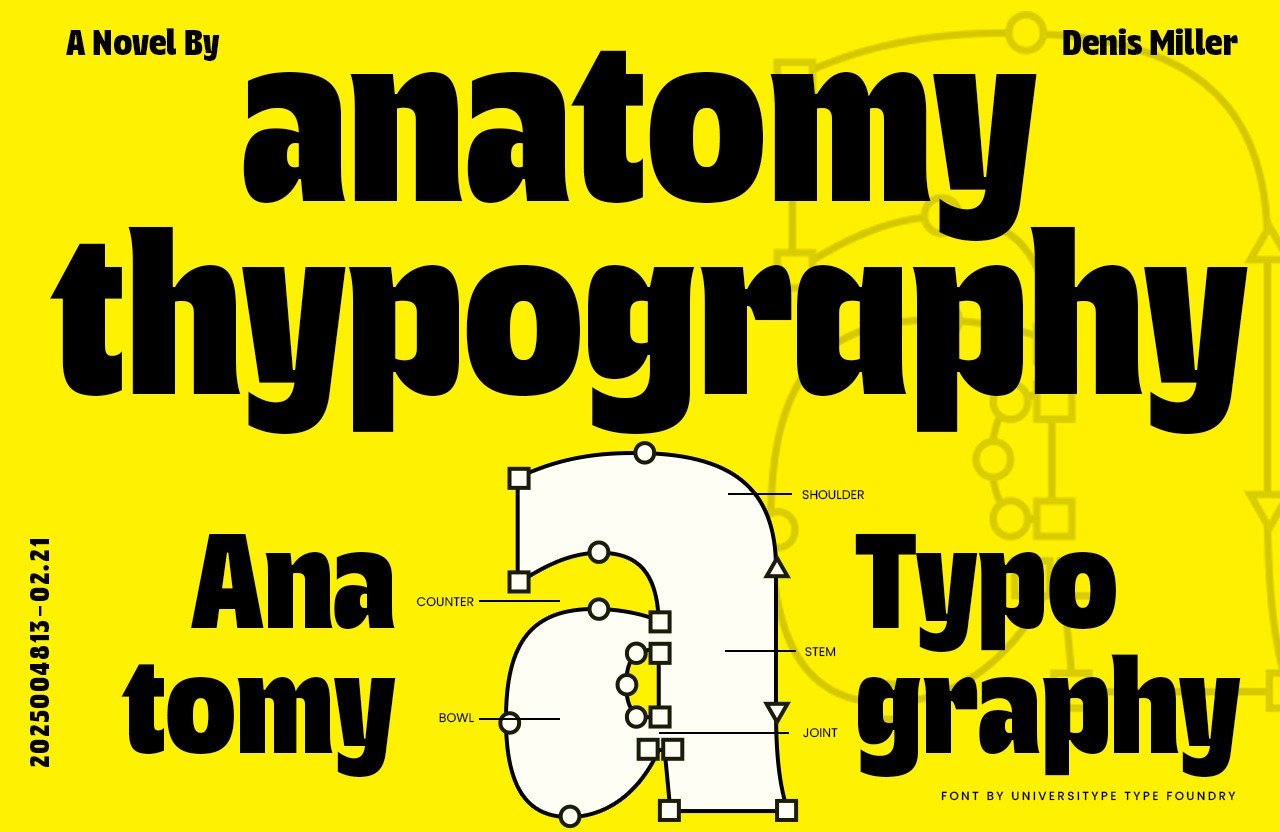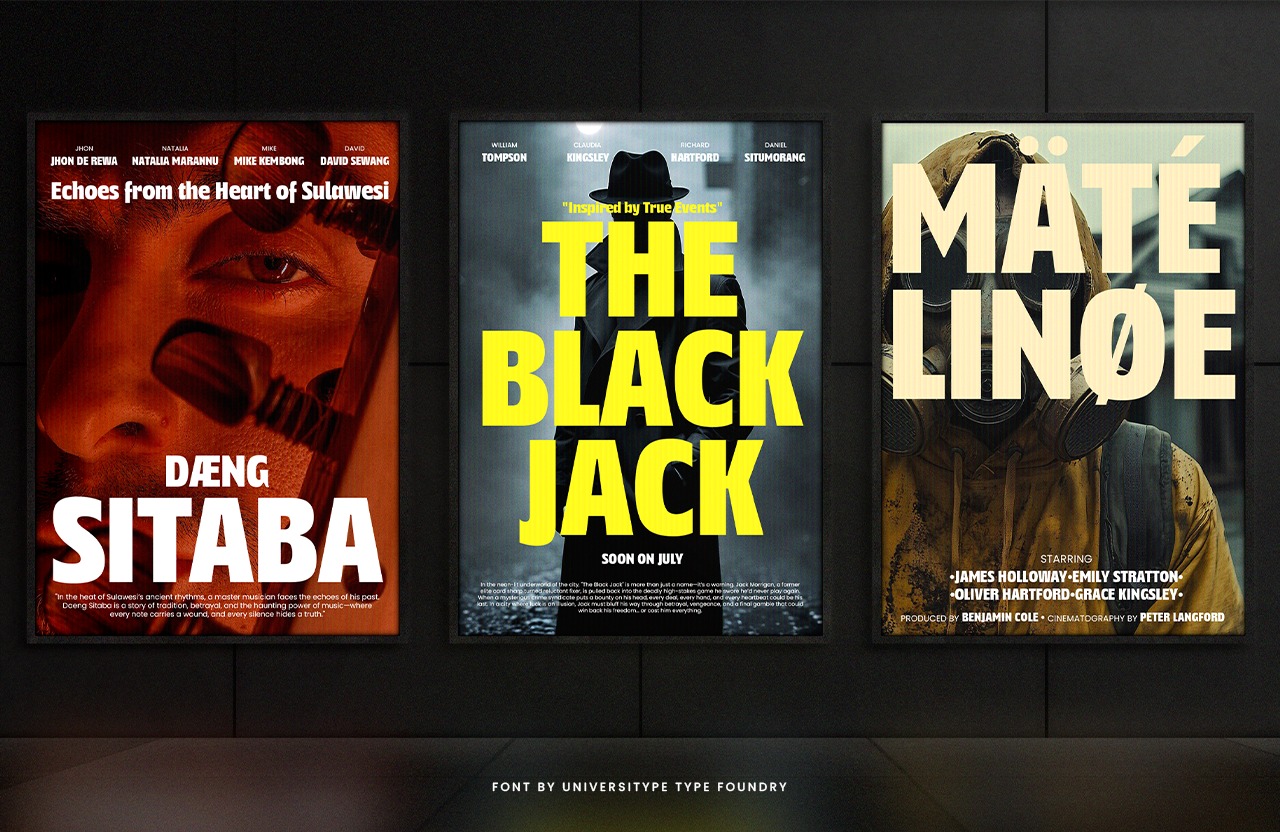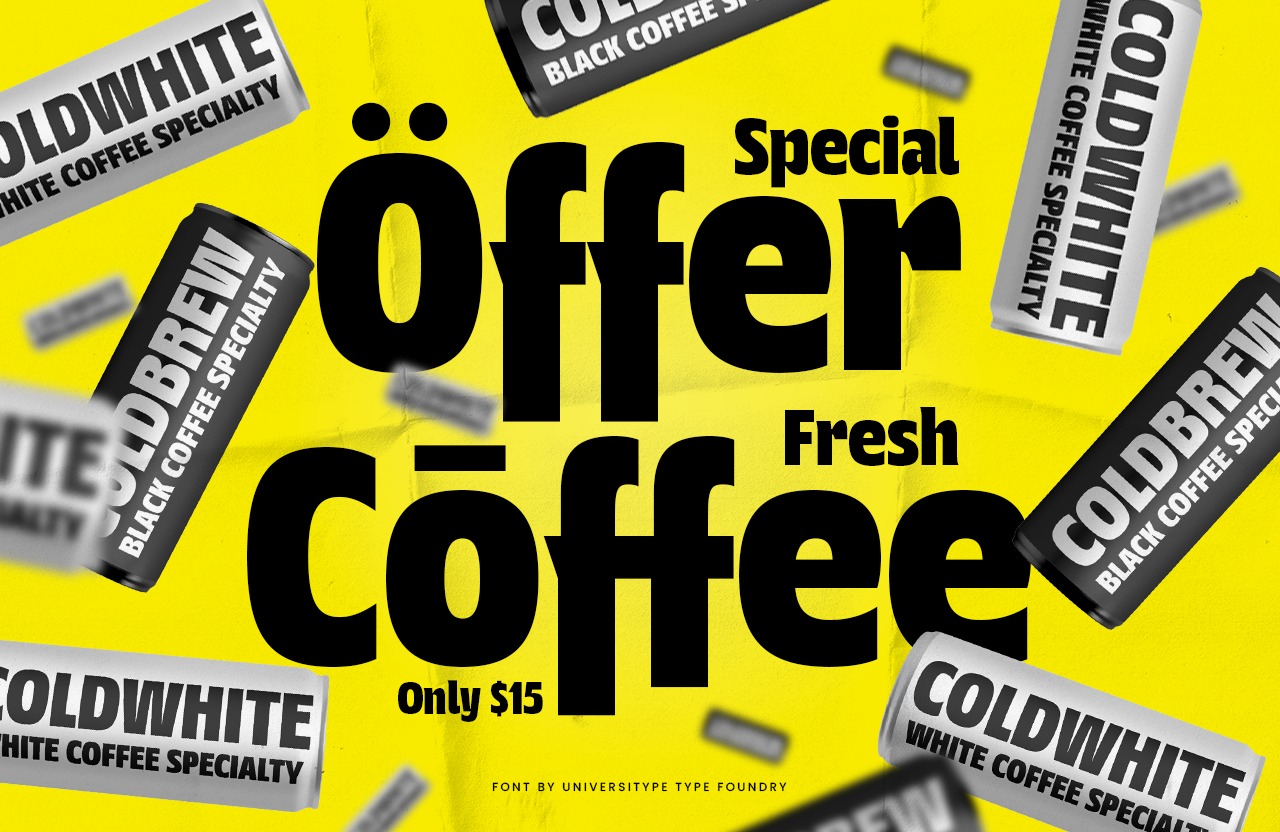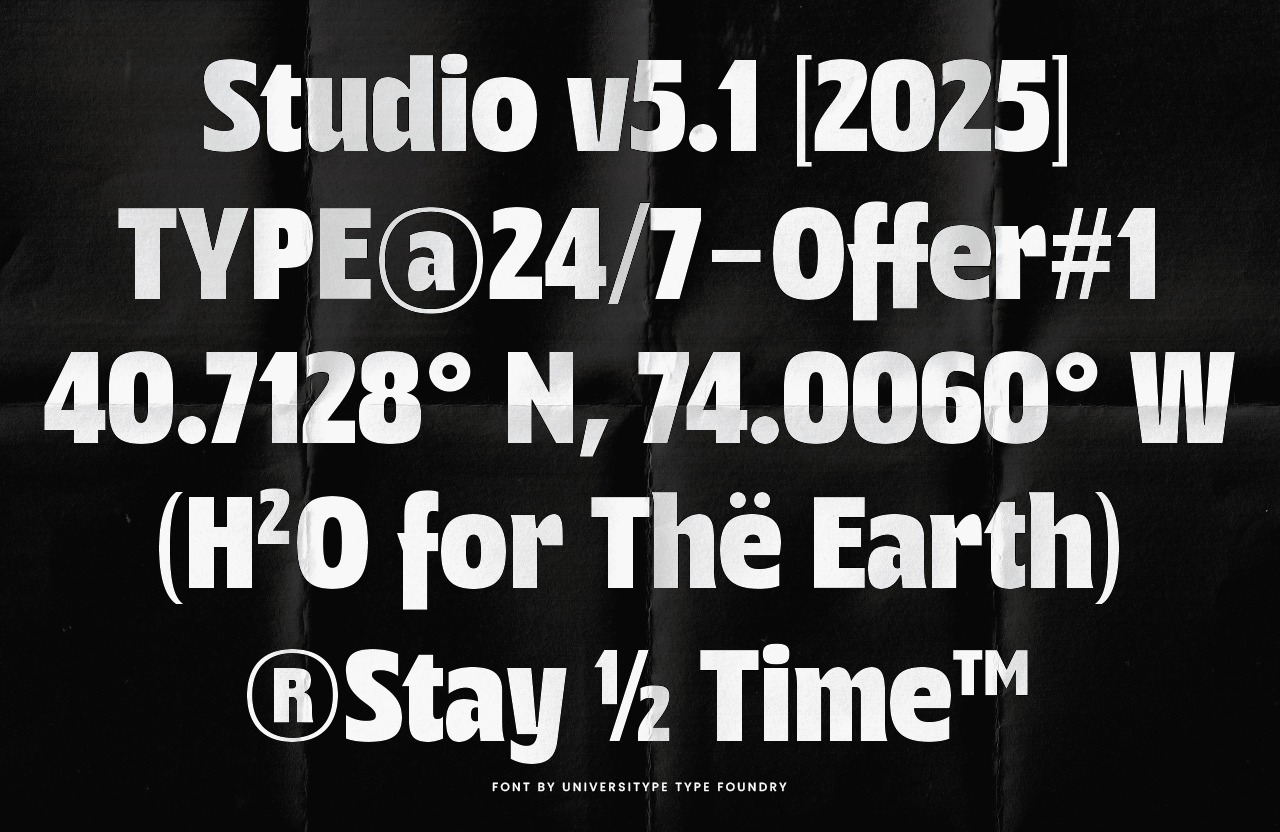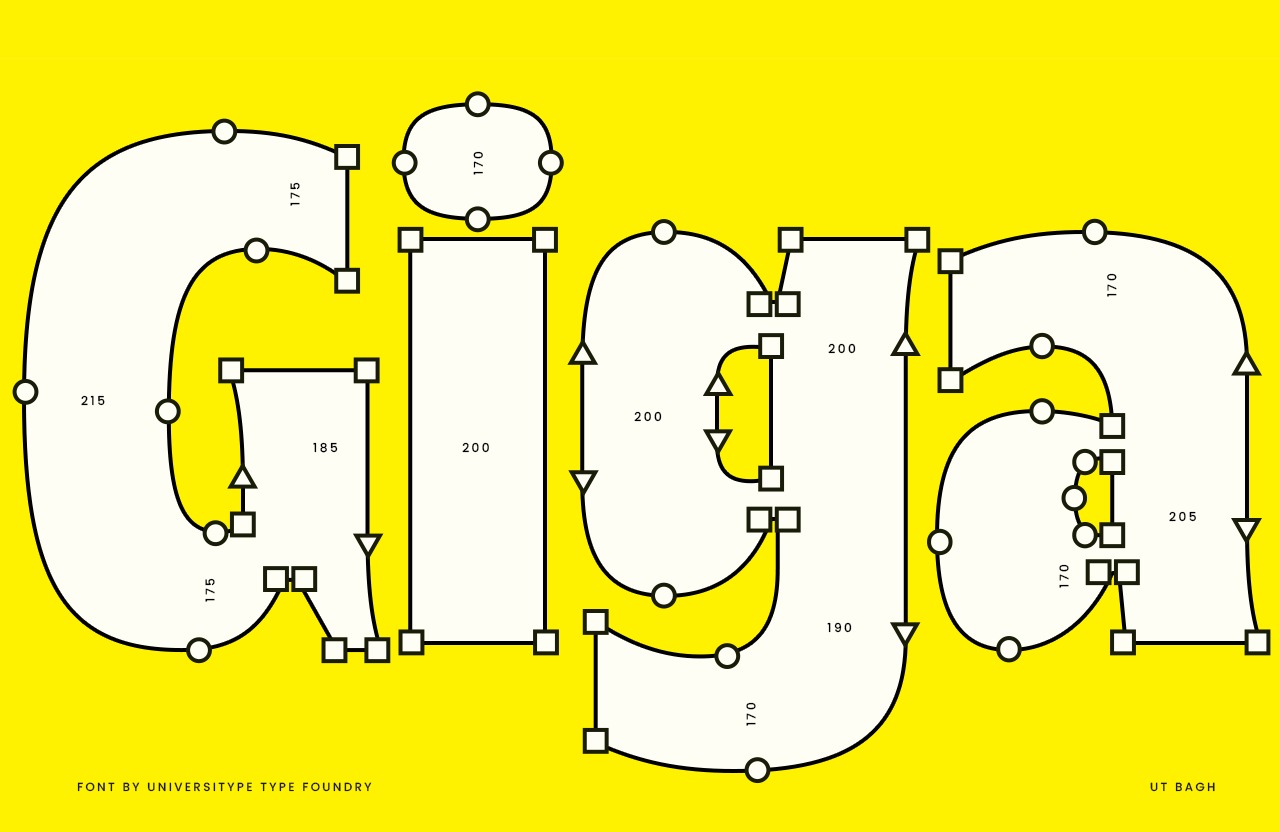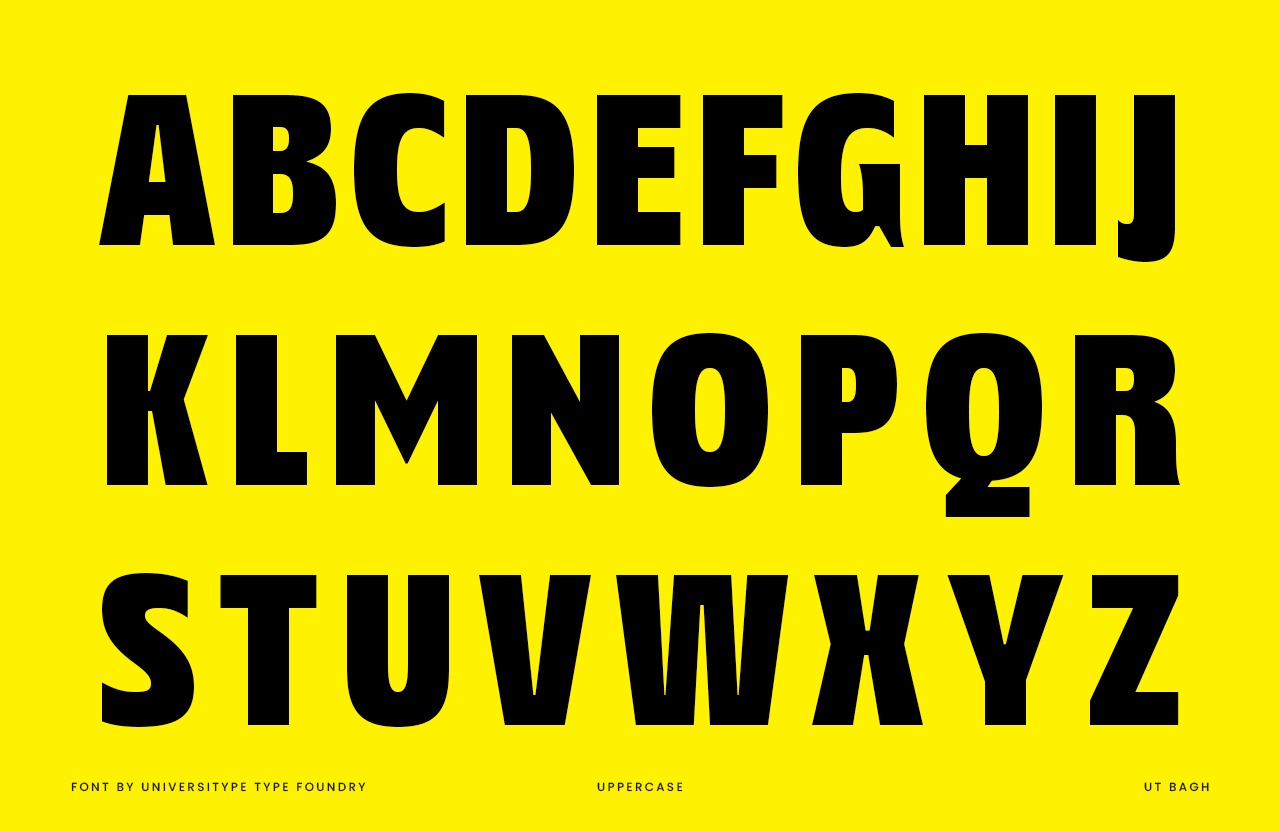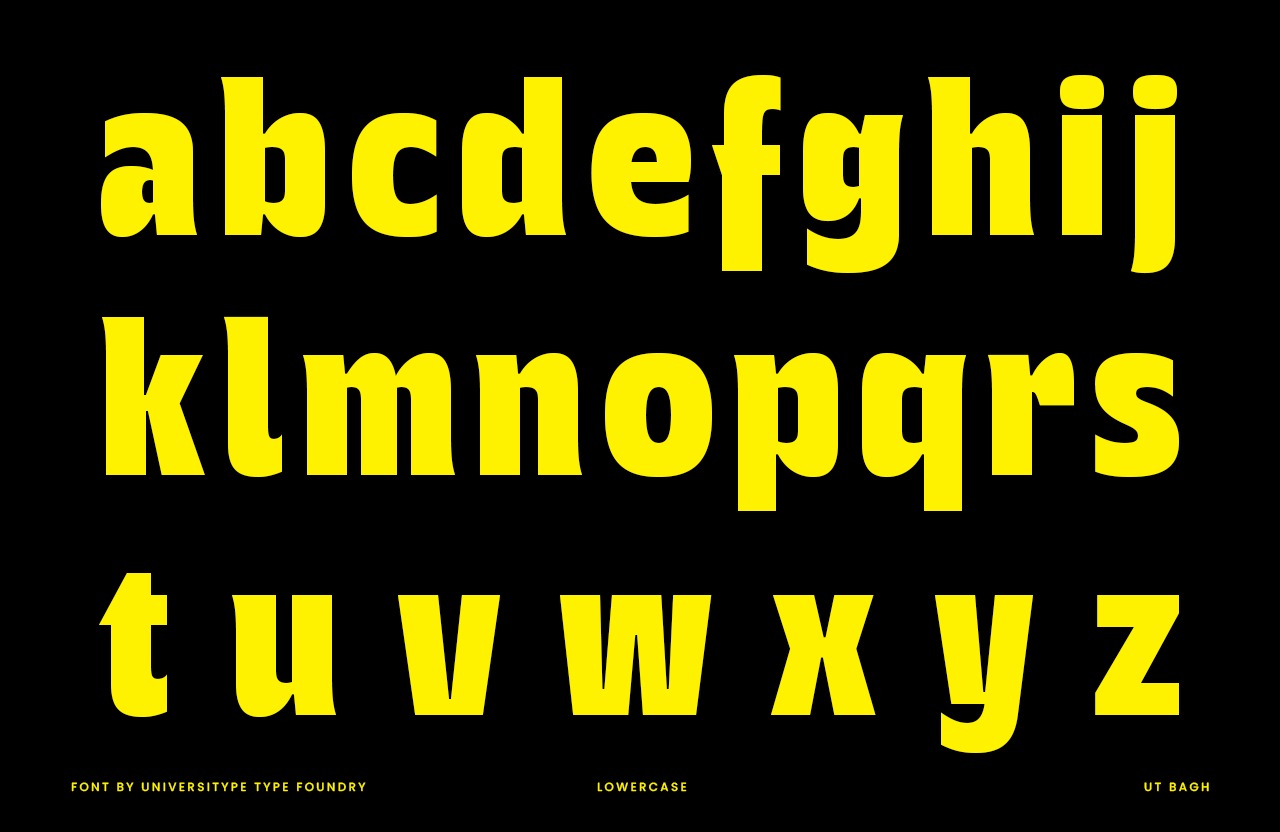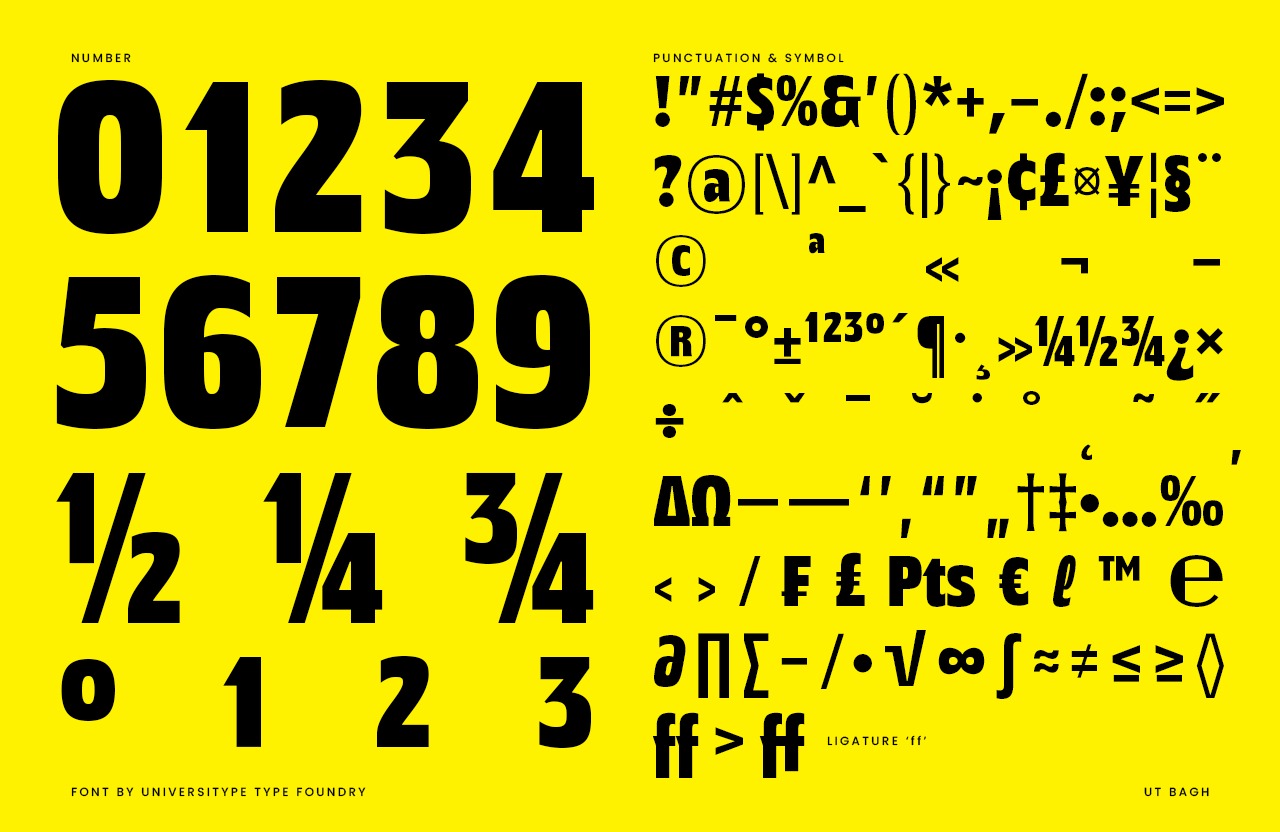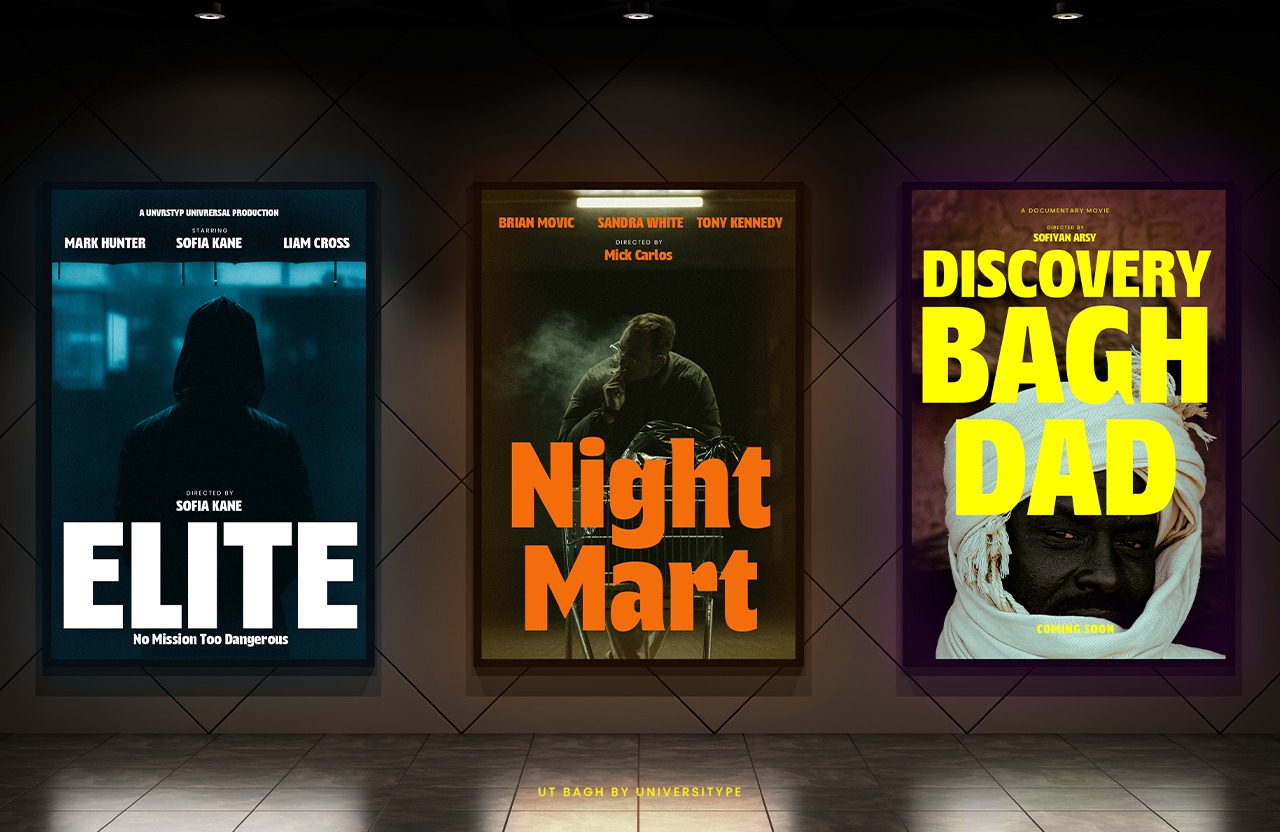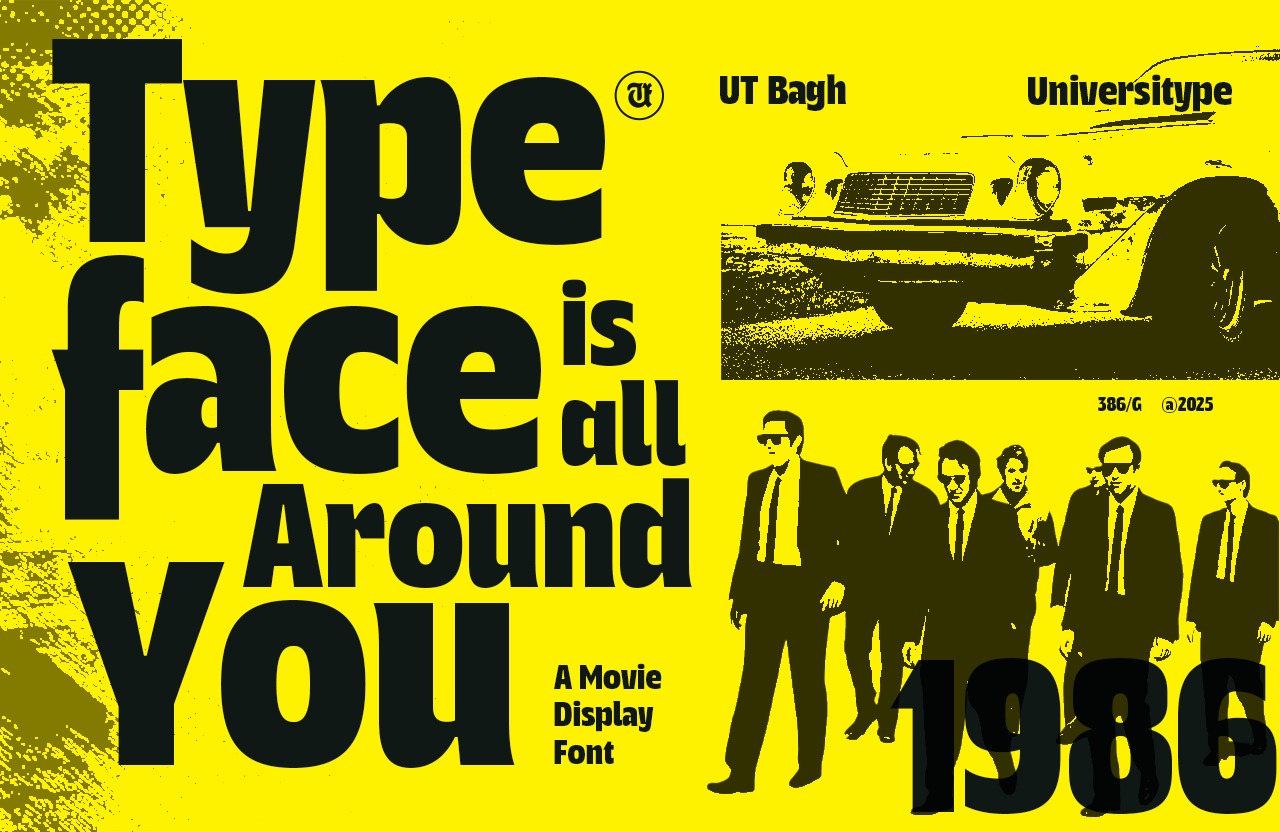
UT Bagh Display - A Movie Font Display
UT Bagh is a neo-grotesk sans-serif built with the big screen in mind. It’s clean, modern, and confident, crafted to be just as striking on a four-story movie poster as it is in the rolling end credits of your favorite film.